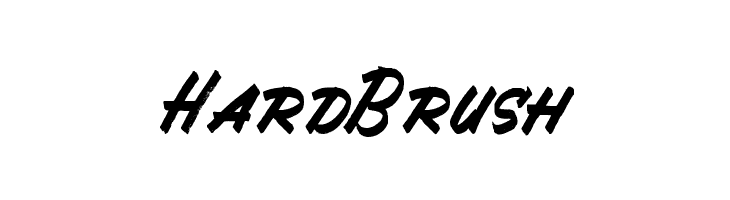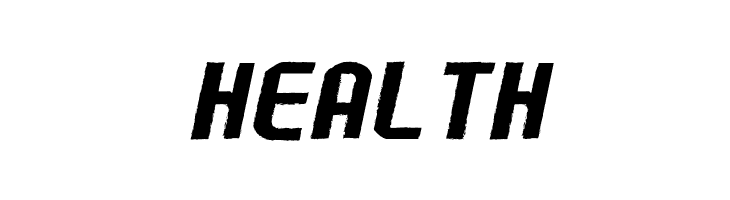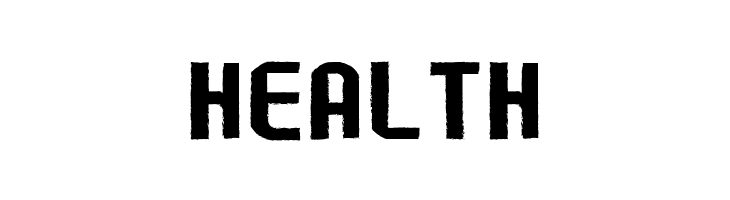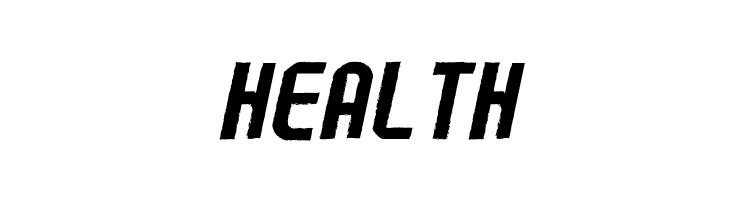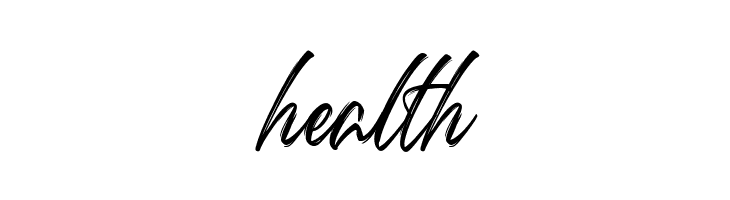
A dynamic brush script font with fluid strokes and elegant flair.
A bold, expressive brush-style font with an artistic and informal feel.
A bold, brush-style font with a dynamic, hand-painted look.
A bold, italicized brush font with expanded, expressive strokes.
A bold, textured brush font with a handcrafted feel.
A bold, brush-style font with a hand-painted, dynamic appearance.
A bold, brush-style italic font with dynamic and expressive strokes.
A bold, dynamic brush-style font with expressive, energetic strokes.
A lively and expressive brush script font with dynamic curves and natural handwriting style.
A dynamic, brush-style font with fluid, handwritten strokes.